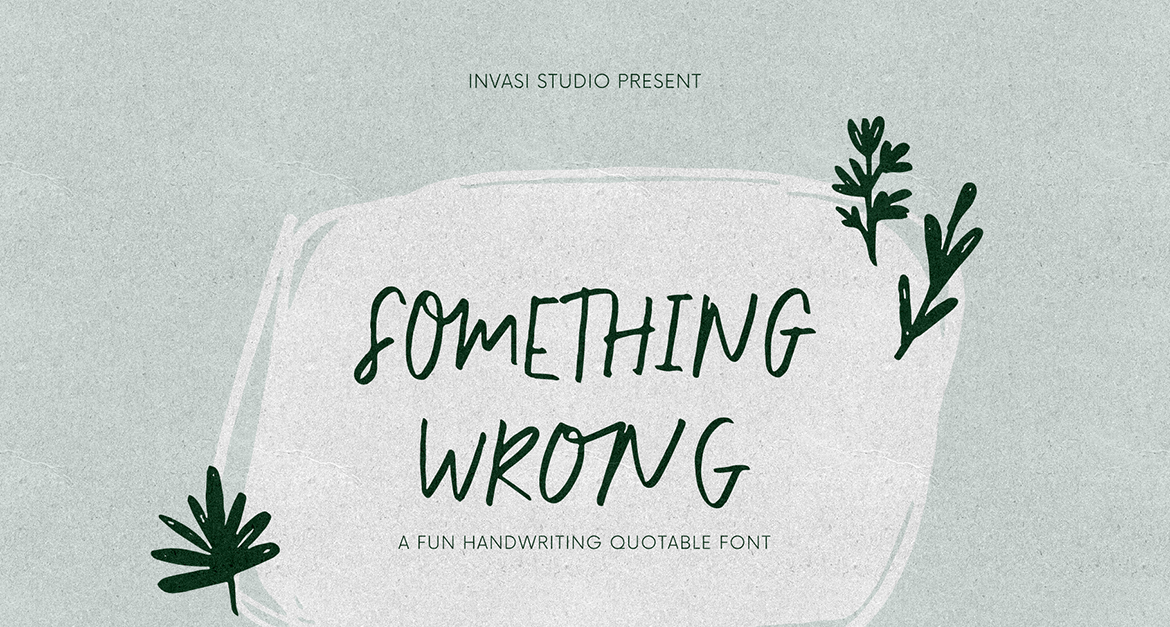
Something Wrong - Fun Quotable Fonts
Introducing our new Uppercase Quotable font, Something Wrong Font with a stylish and fun handwritten style. Which puts playful fun on your projects and will inspire you to create something unique or playful design.
Something Wrong is a great font for notes, quotes, sweet greeting cards, and stand-out branding.
Features:
- Multi-language
- Punctuation
- Standard Ligatures
- Contextual Alternates